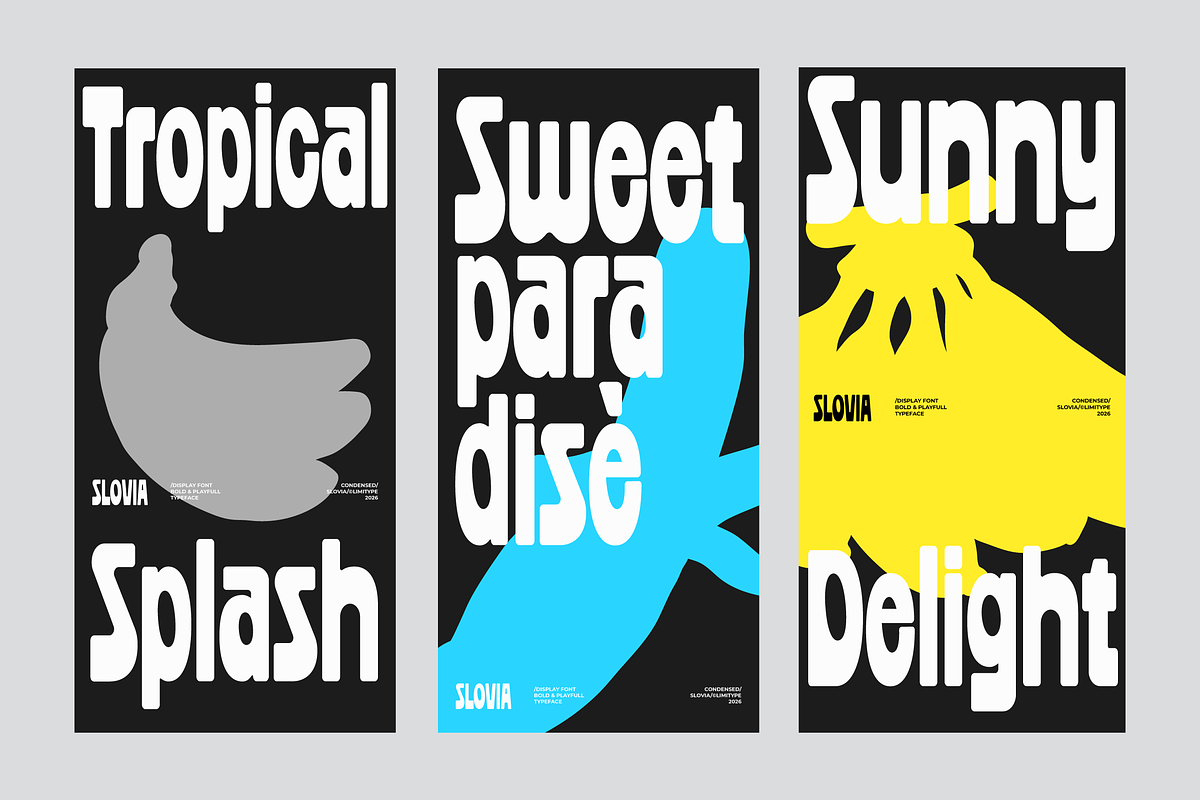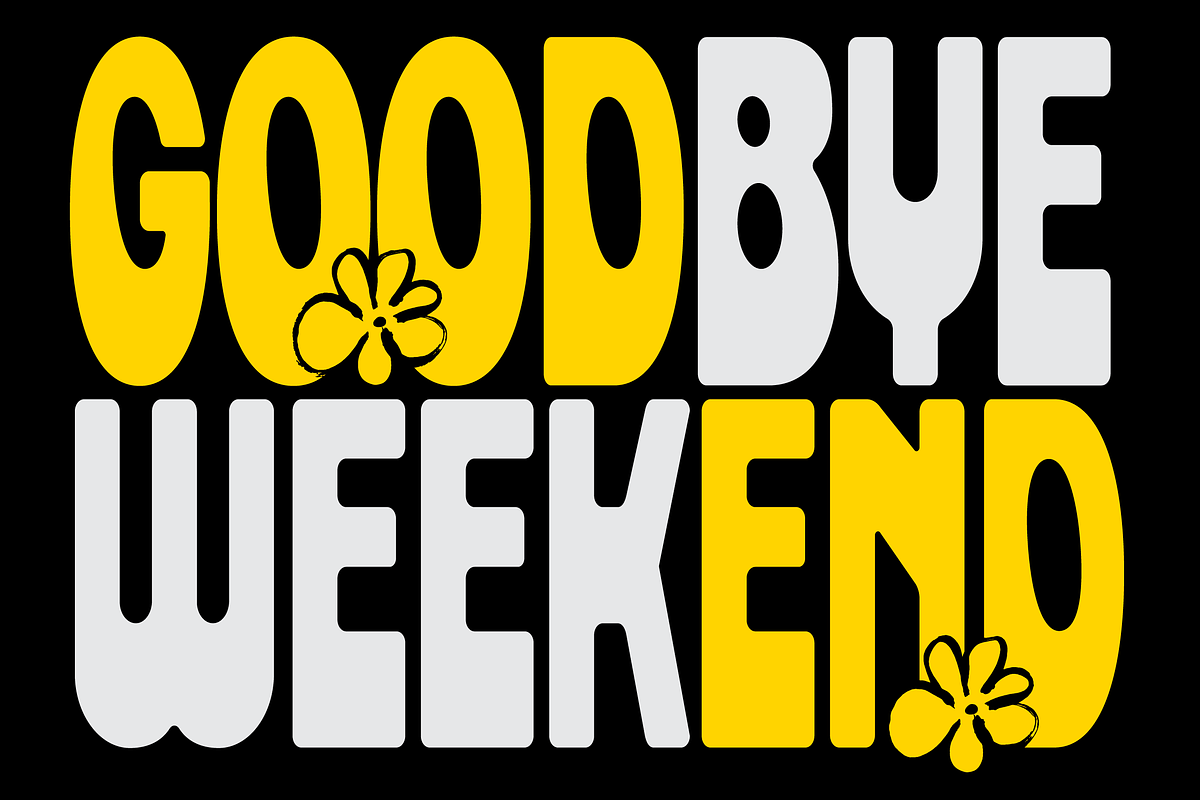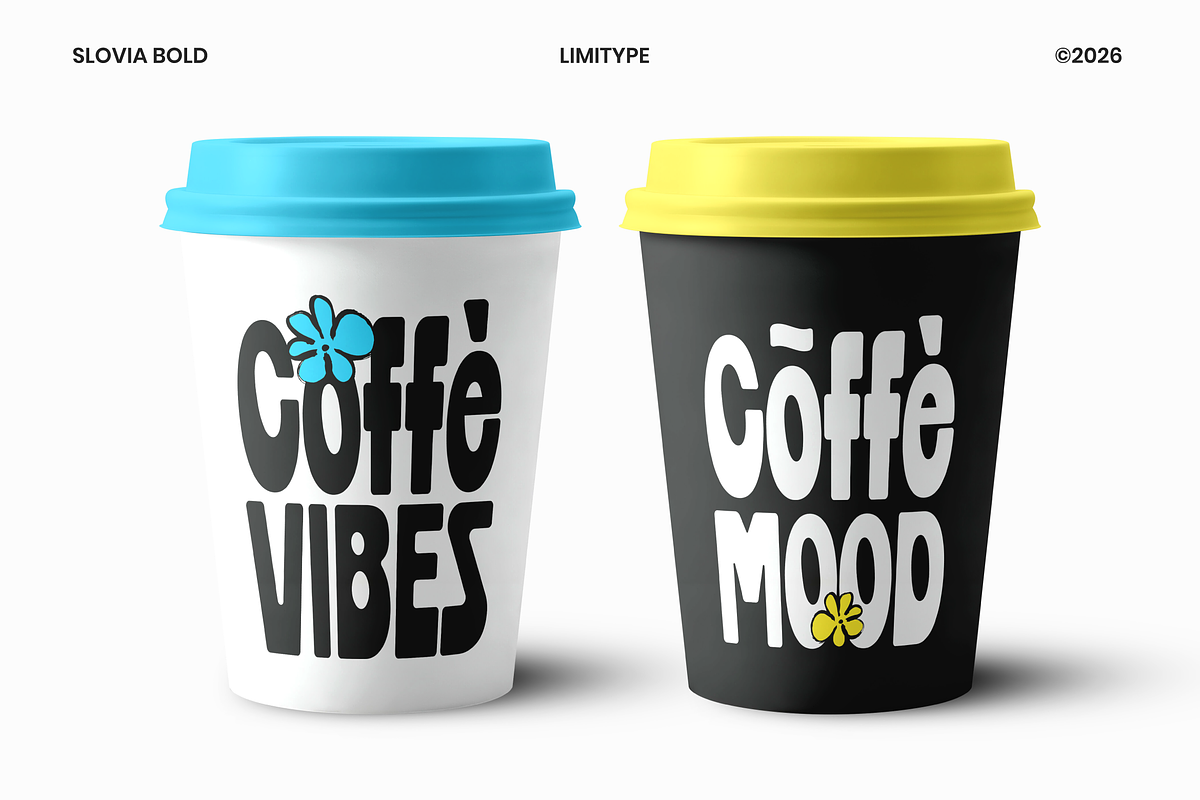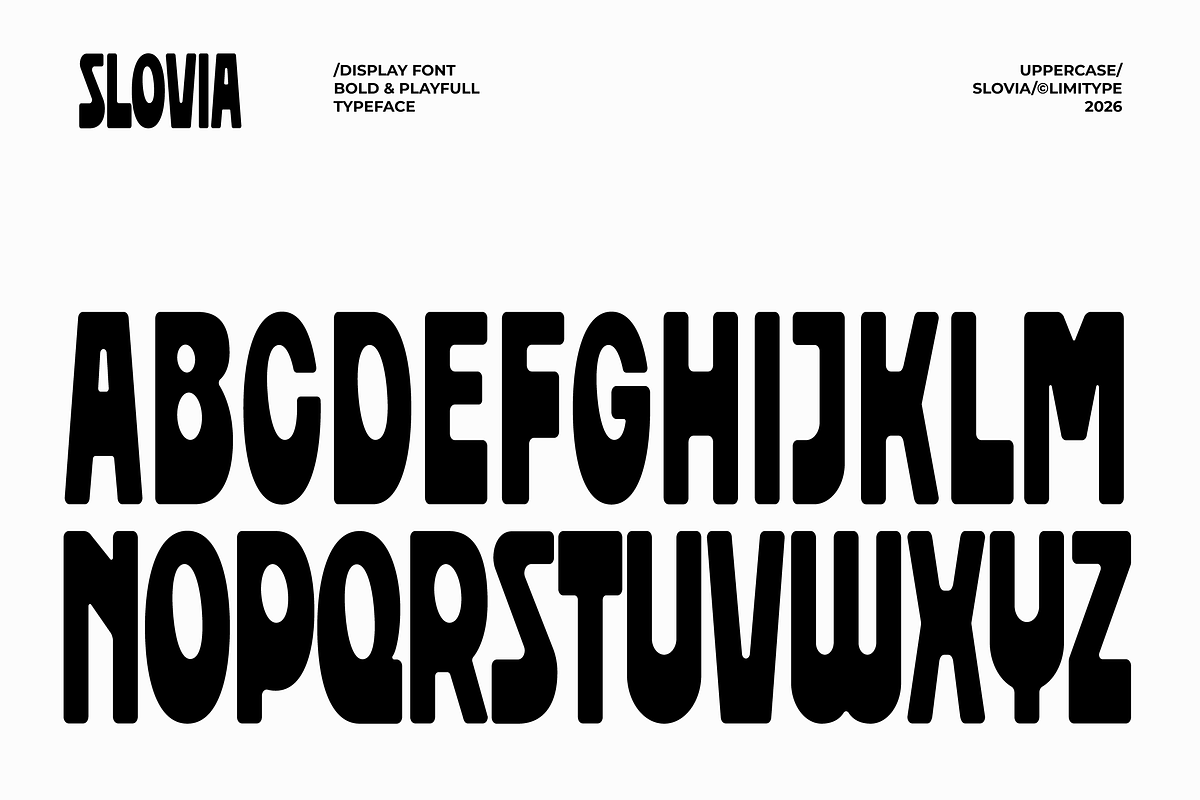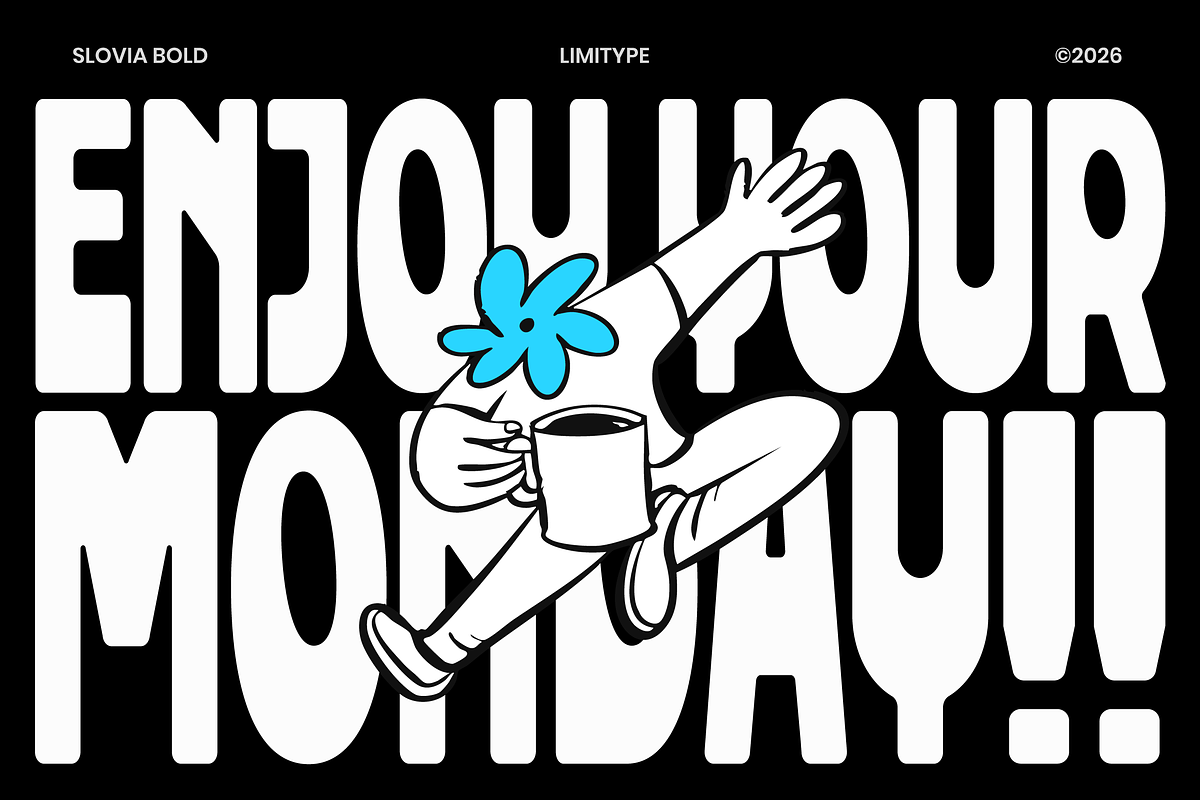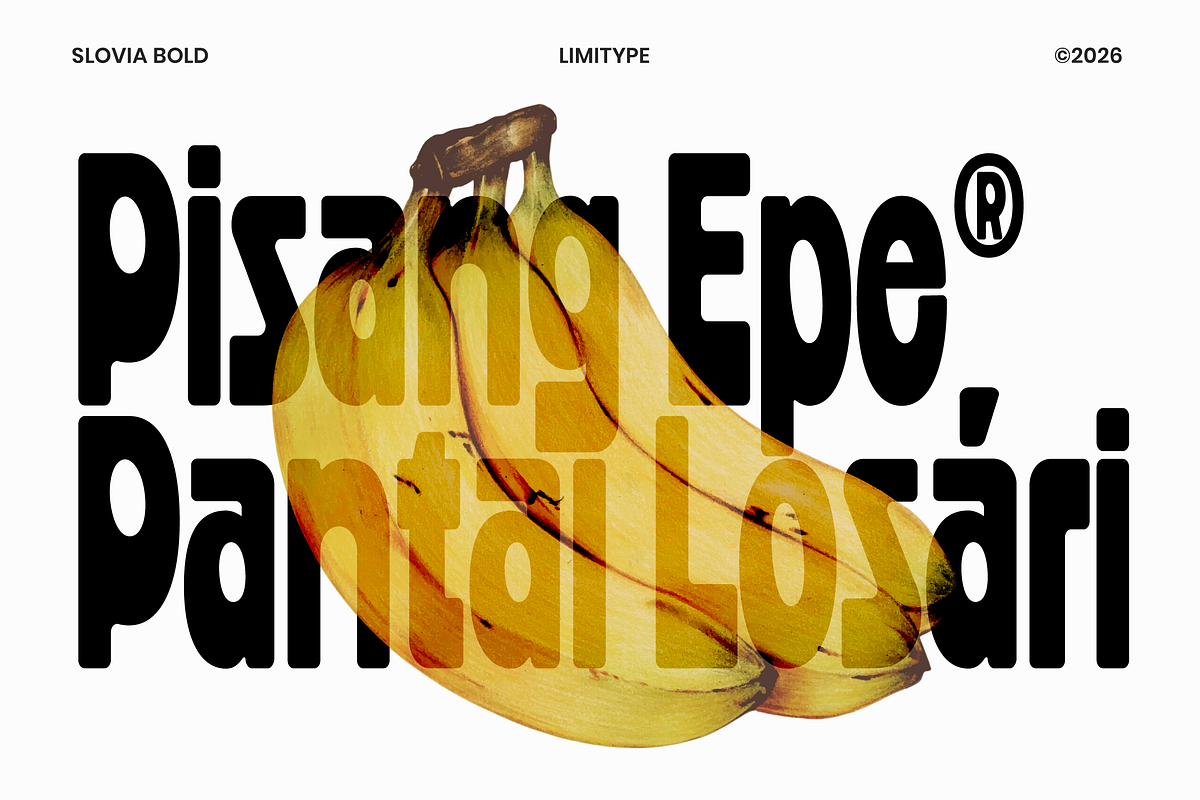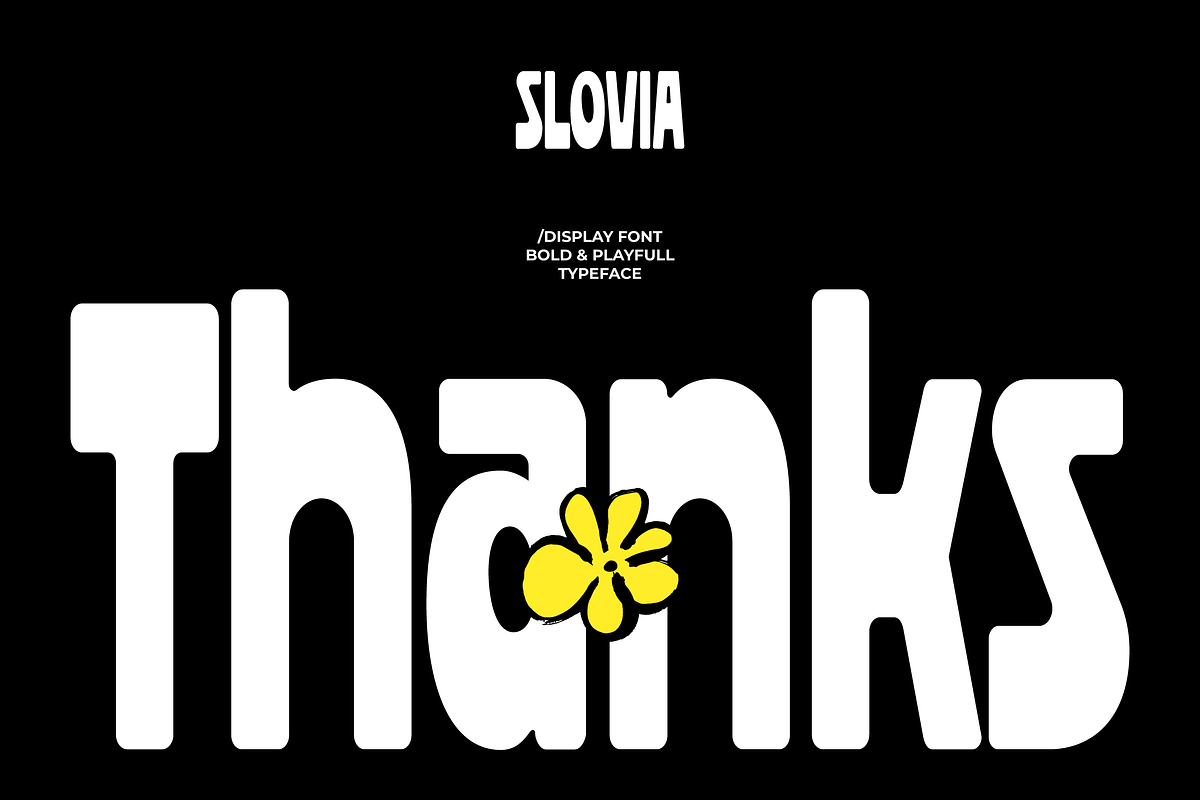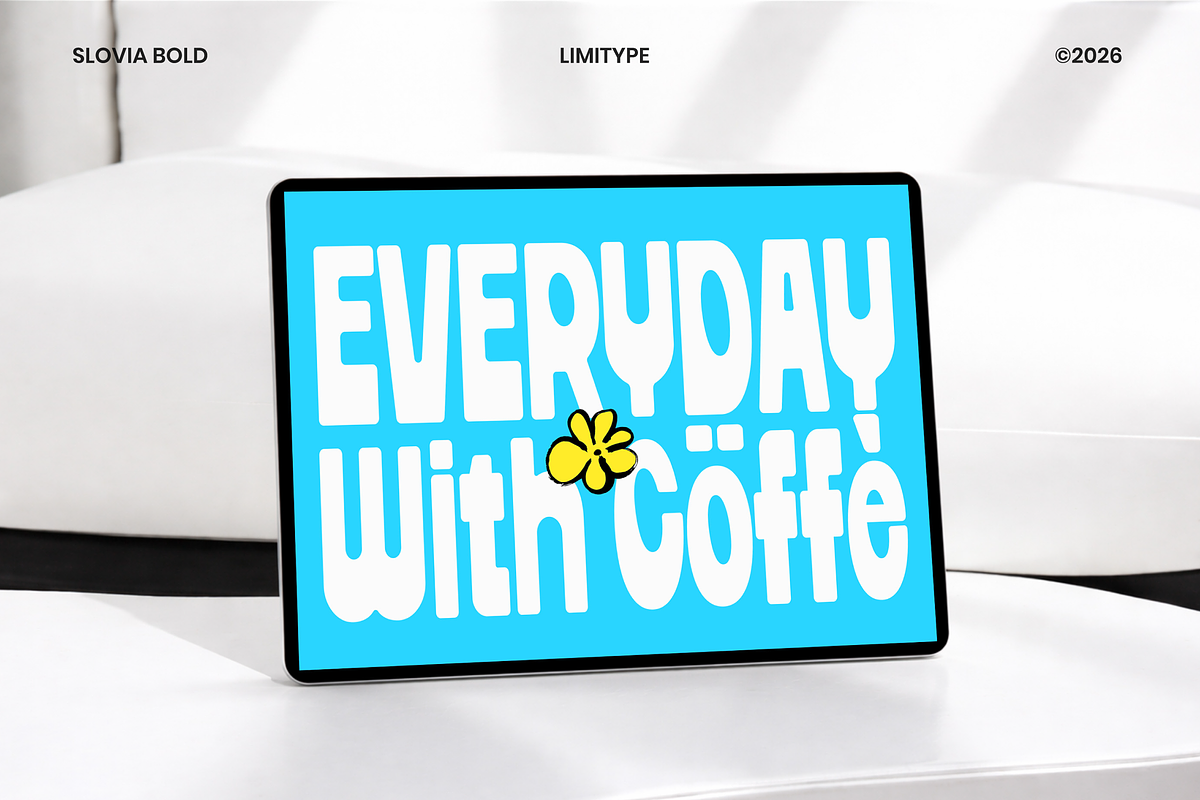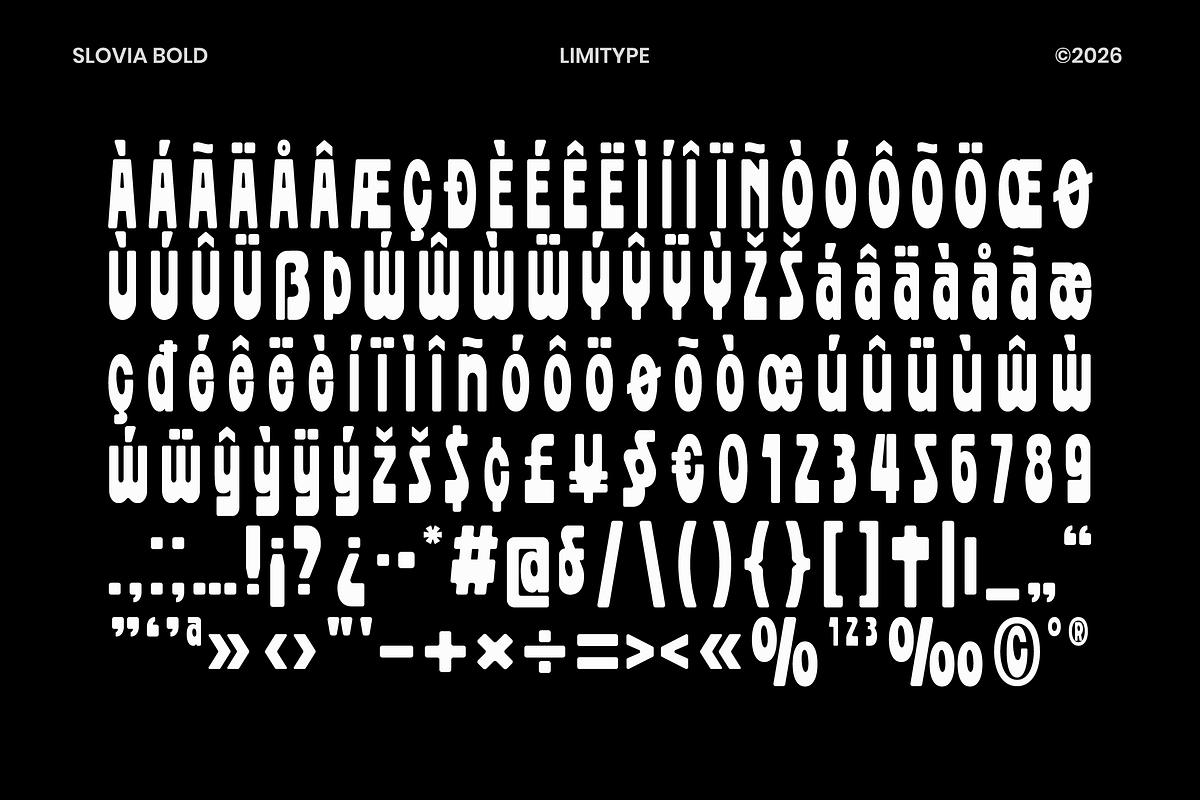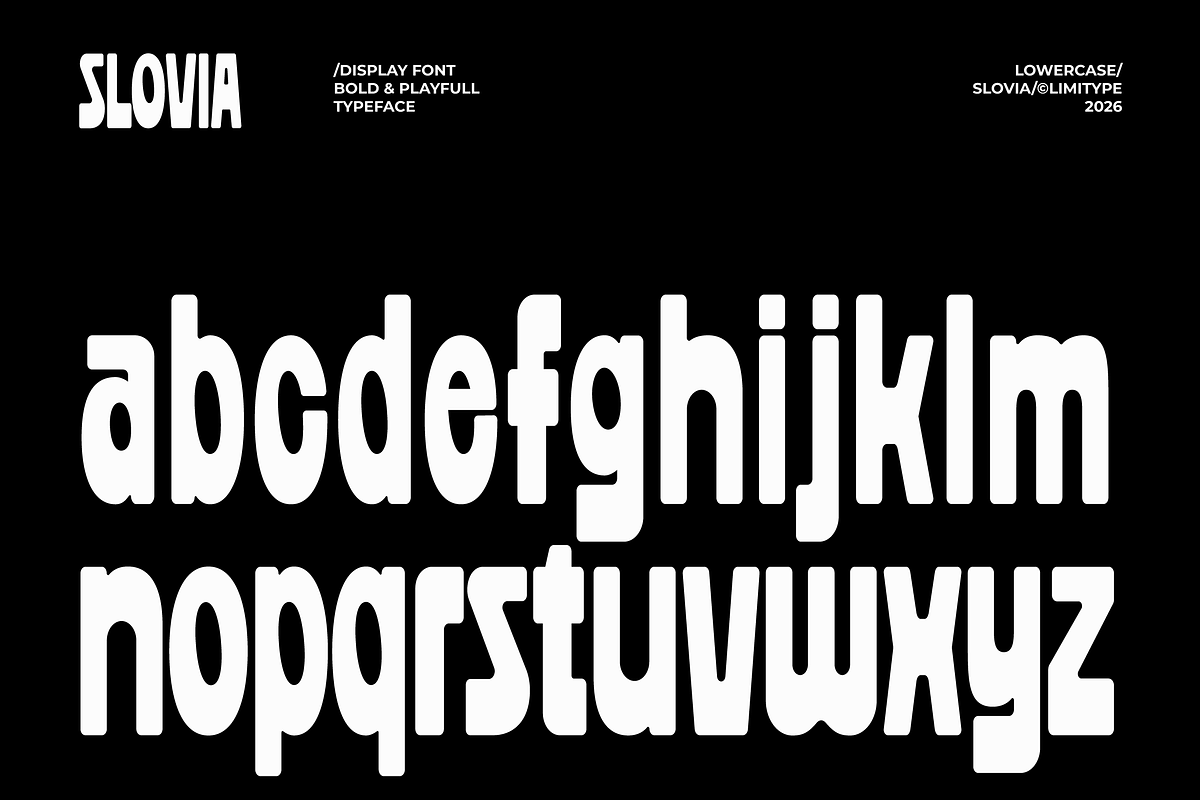
Slovia - Bold Condensed Font
Slovia is a bold condensed font with playful forms and unique character, designed to bring energetic personality and standout visual appeal to every design project. Its distinctive style combines modern creativity with a strong structure, making it highly suitable for branding, logos, posters, packaging, headlines, and trendy visual identities that capture attention across both digital and print media.